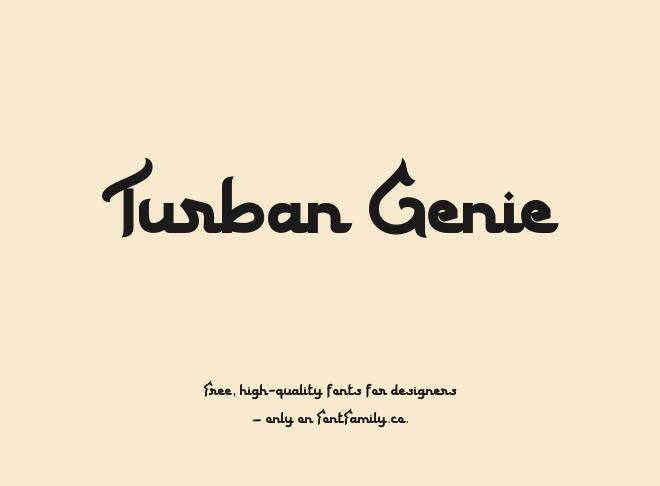
Turban Genie Font
Turban Genie Font is a playful and decorative script font that is sure to add a magical touch to your design projects. Inspired by Arabian nights, this font has a unique charm that is reminiscent of Aladdin's genie, making it perfect for themed party invitations, children's book covers, and whimsical branding. The intricate details of Turban Genie Font make it stand out from the crowd, while its retro style gives it a nostalgic feel. This font is versatile and can be paired with a variety of other fonts for a unique look. Its open font license makes it accessible for both personal and commercial use. Choose Turban Genie Font to infuse your design projects with a sense of magic and wonder.